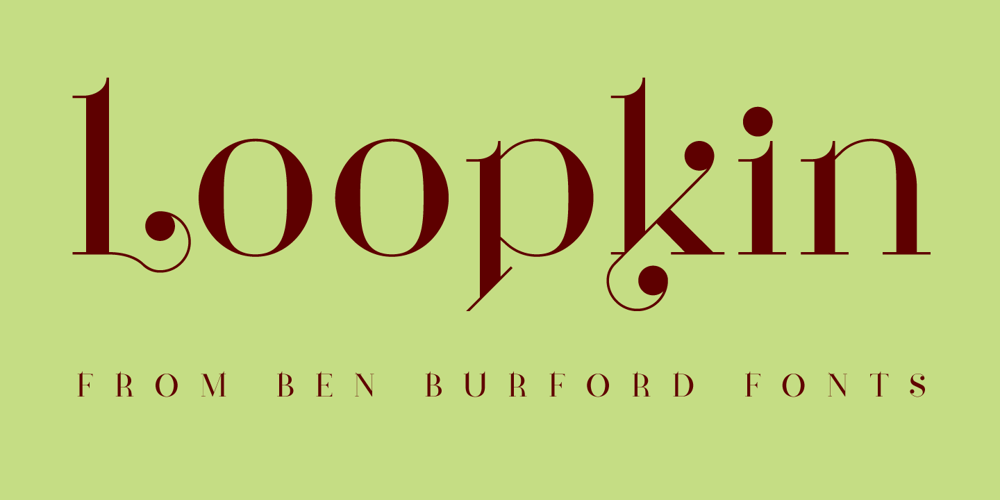
Loopkin Font Family was designed by Ben Burford and published by Ben Burford Fonts. Loopkin contains 1 styles and family package options. Loopkin is a new display font from Ben Burford Fonts. It’s a stylistic take on the classic modern serif font that has been a staple in high fashion publications for decades. This OpenType font comes with a full set of characters as well as ligatures and alternative characters using the stylistic sets.